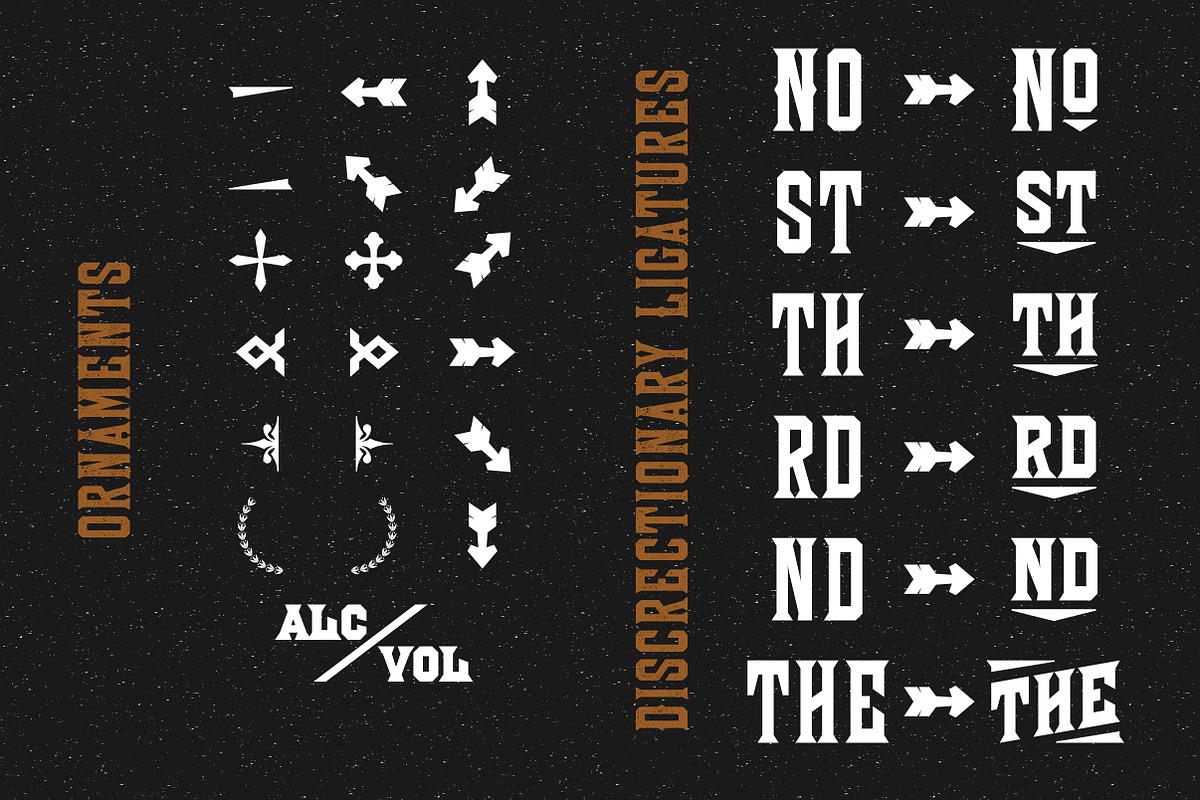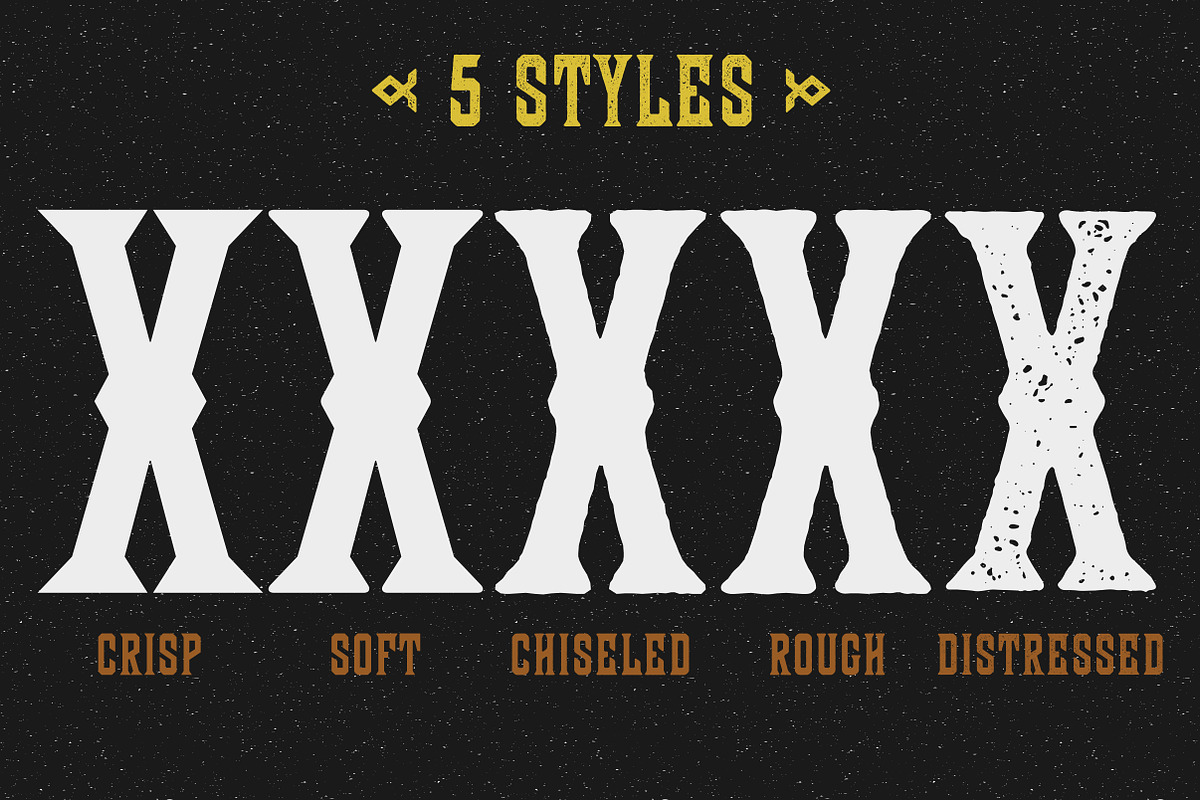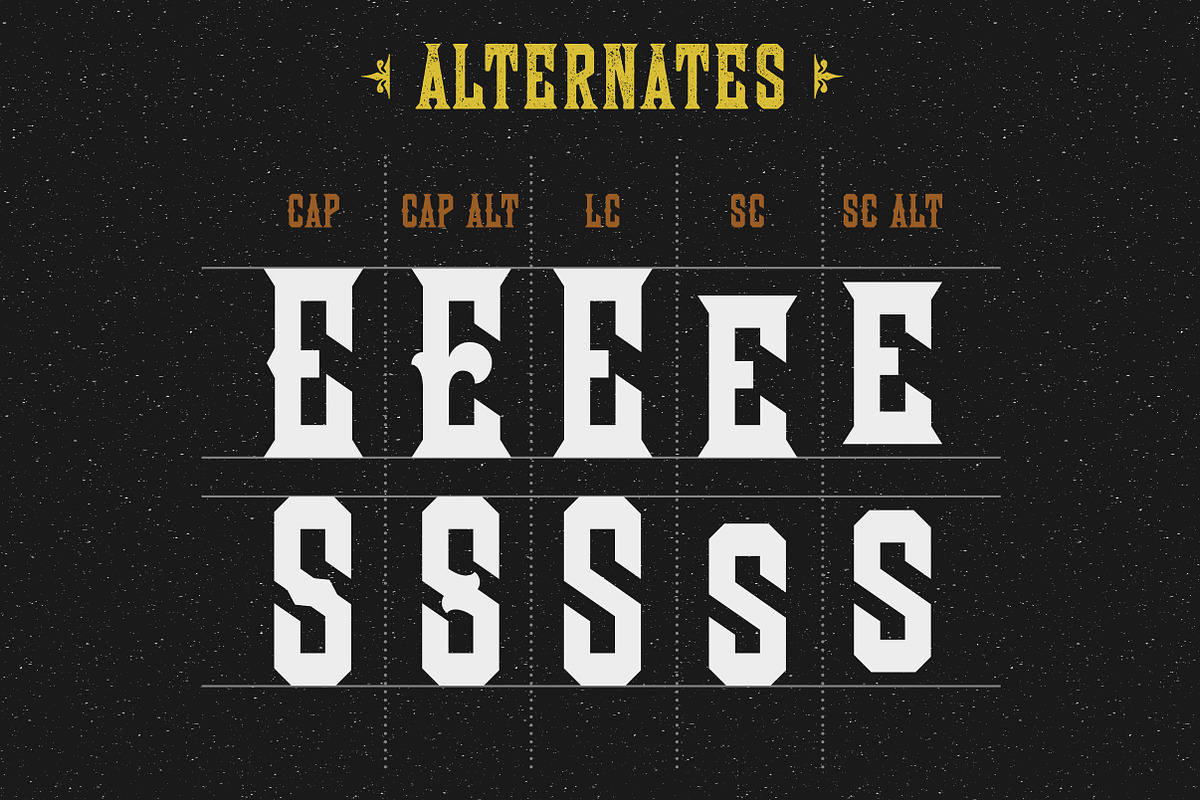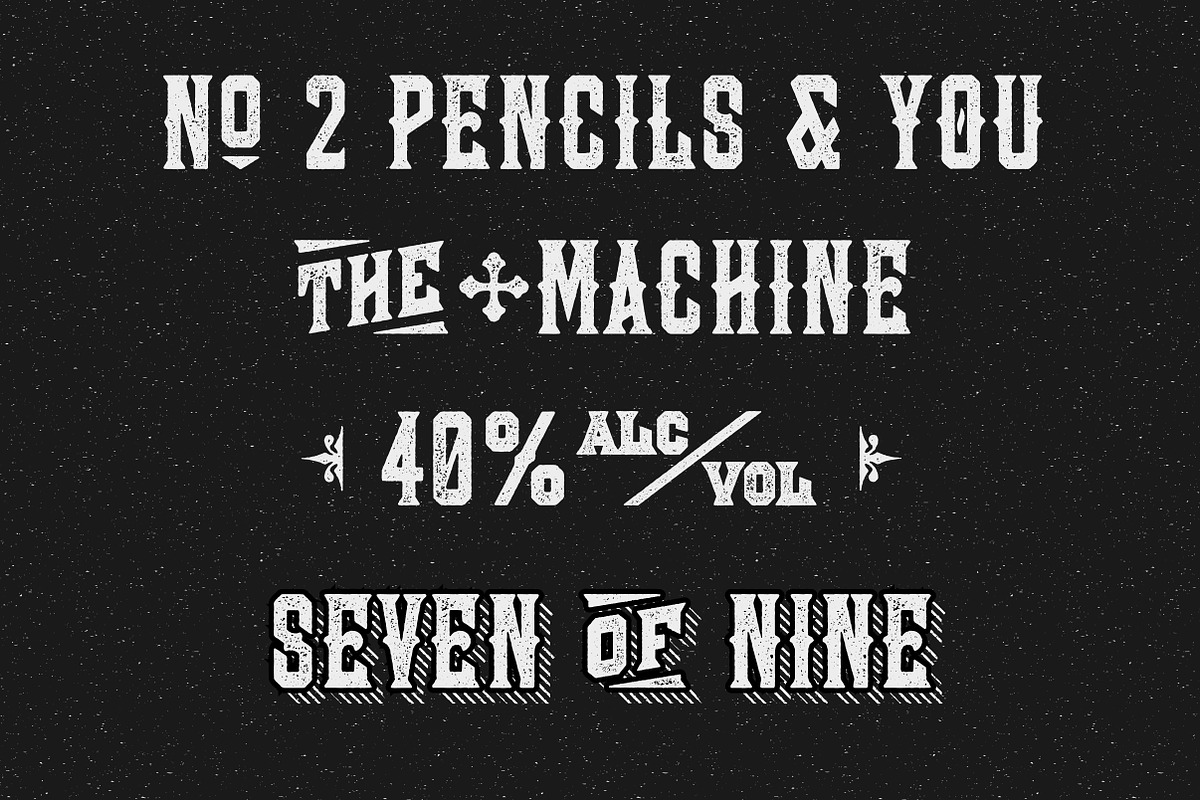
Wooderson Font
Wooderson Font by Sirmon Stuff is a font selected for branding, posters, packaging, typography.
- Don't forget: • A handful of ornaments • Alternate style caps •Small caps • Alternate small caps • discretionary ligatures to snazzify a few
Why Wooderson Font is worth a look
Wooderson Font by Sirmon Stuff fits naturally into Branding, posters, packaging, typography.